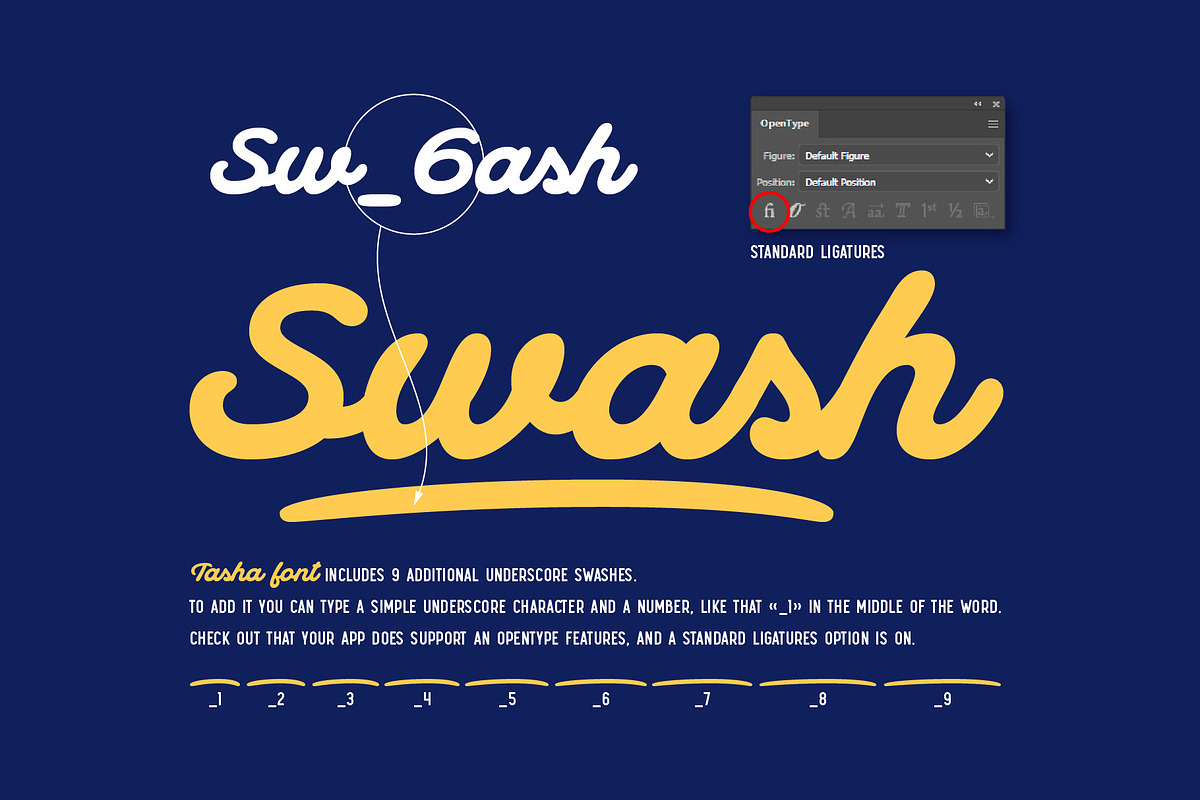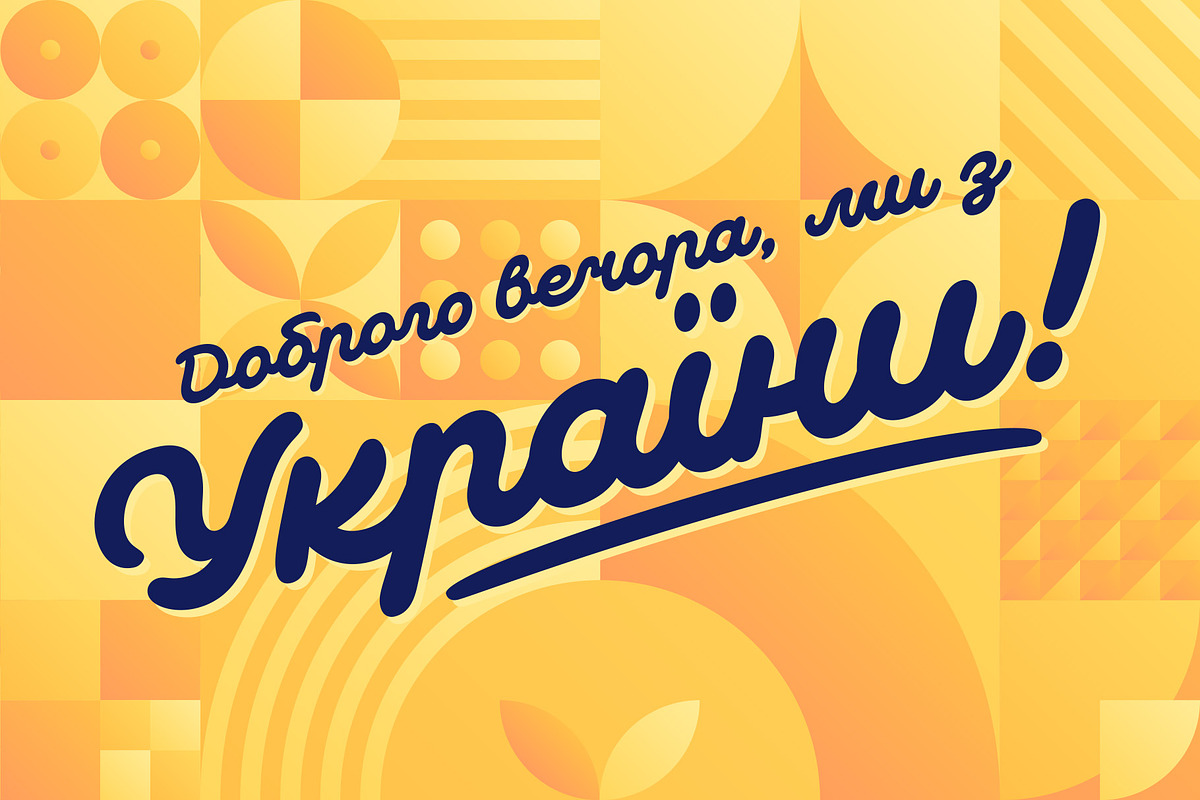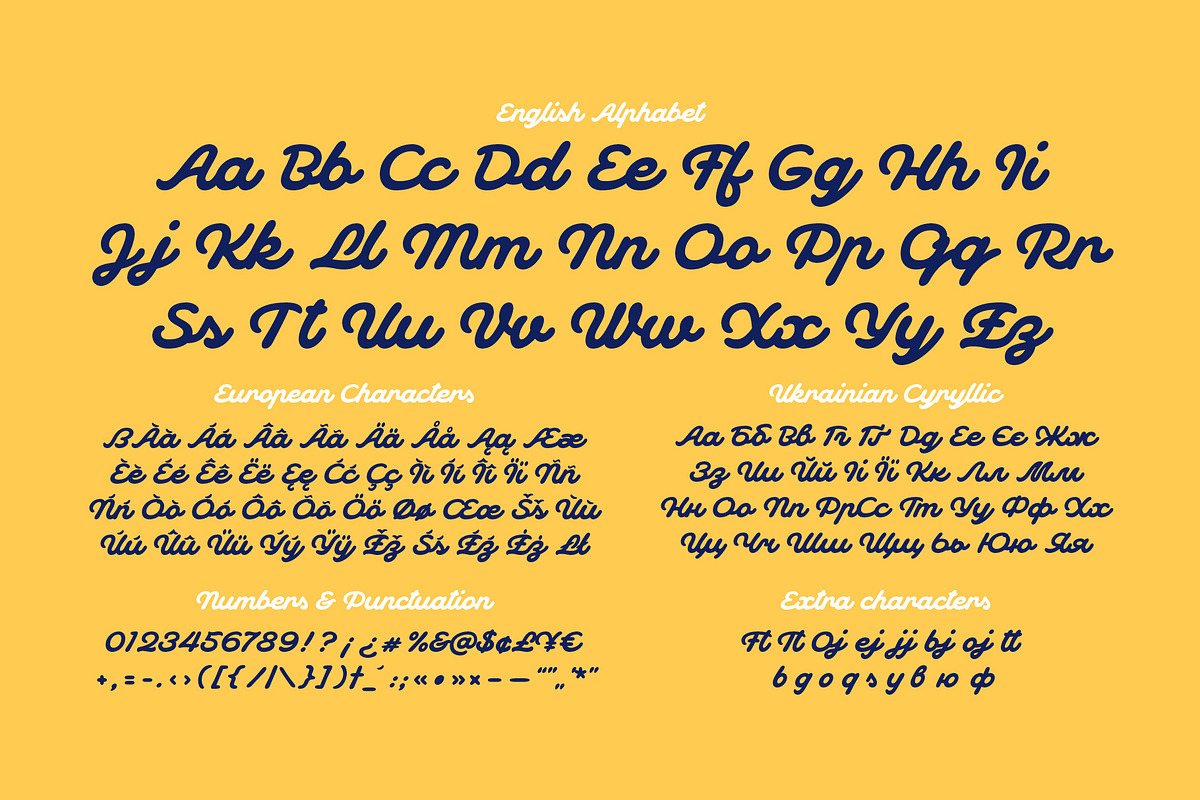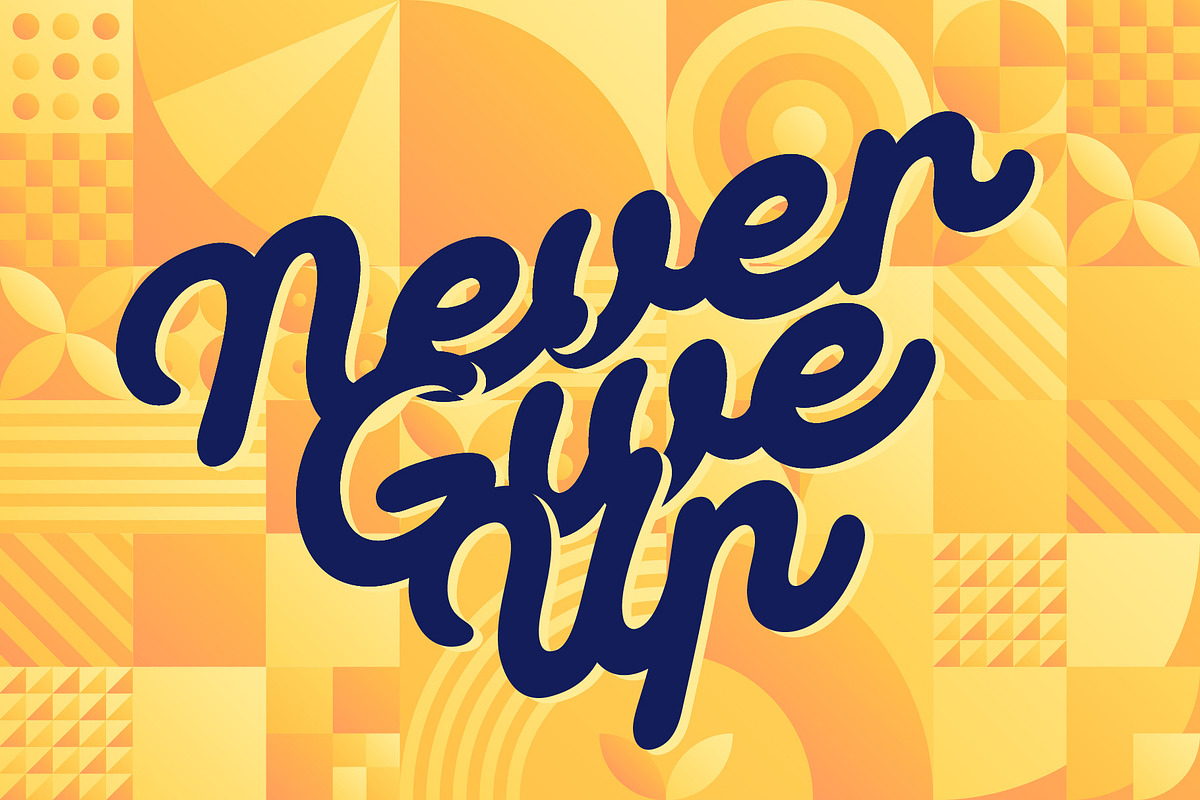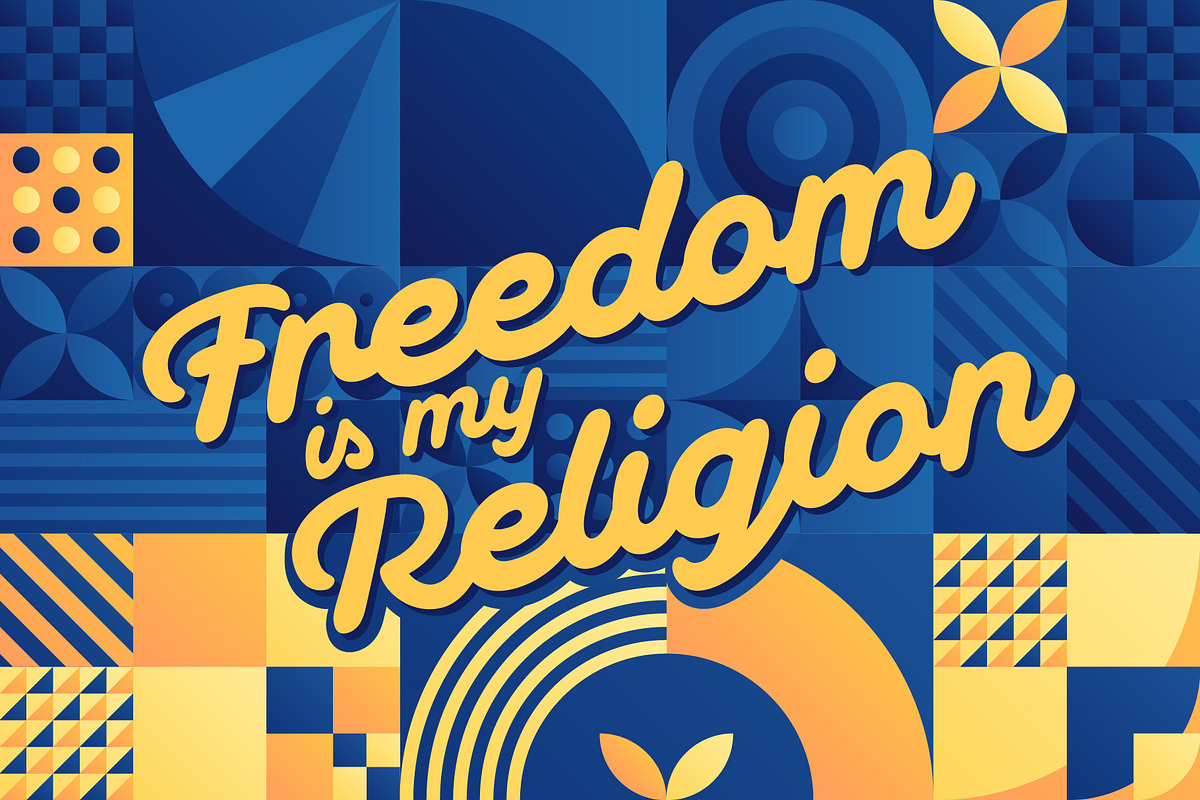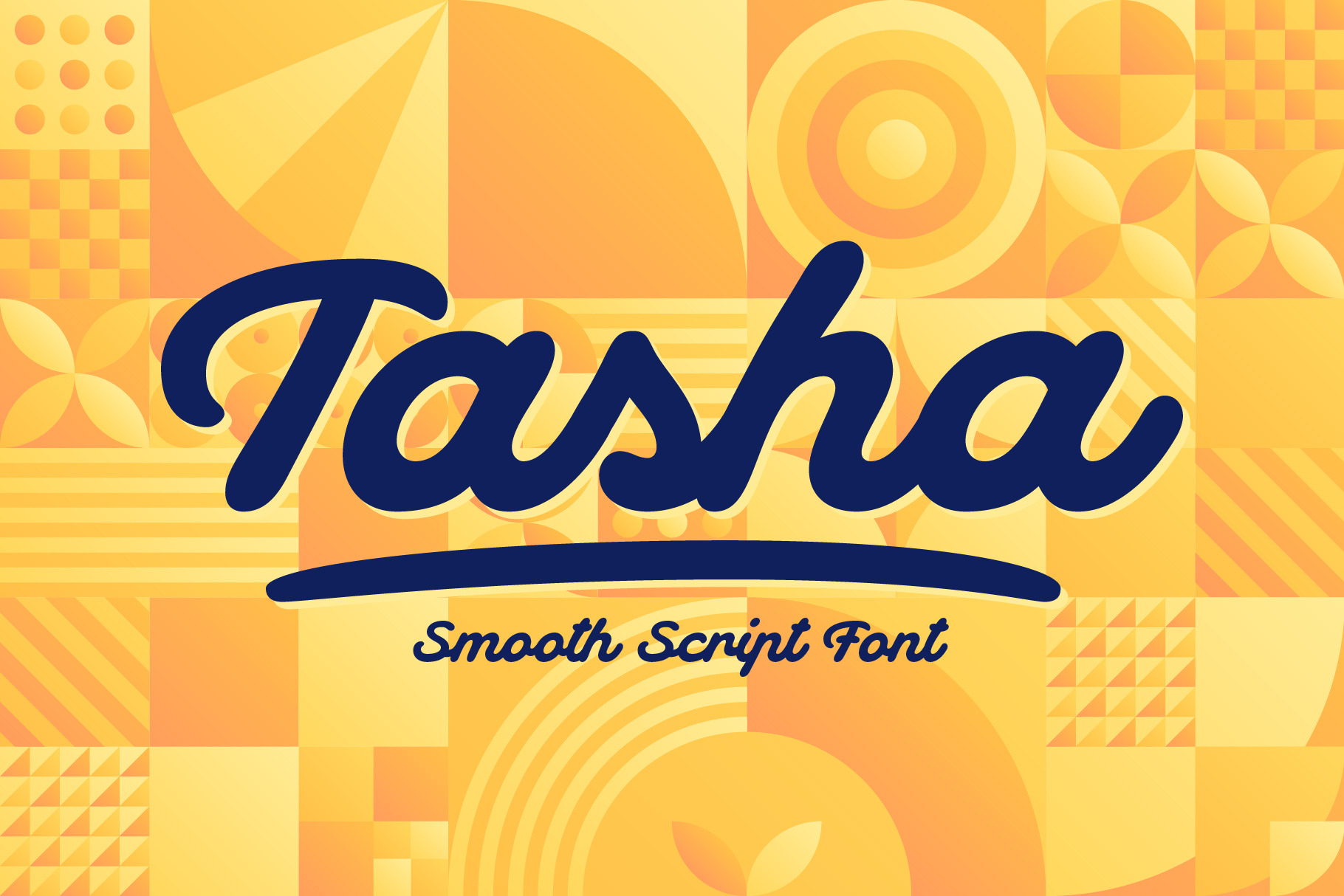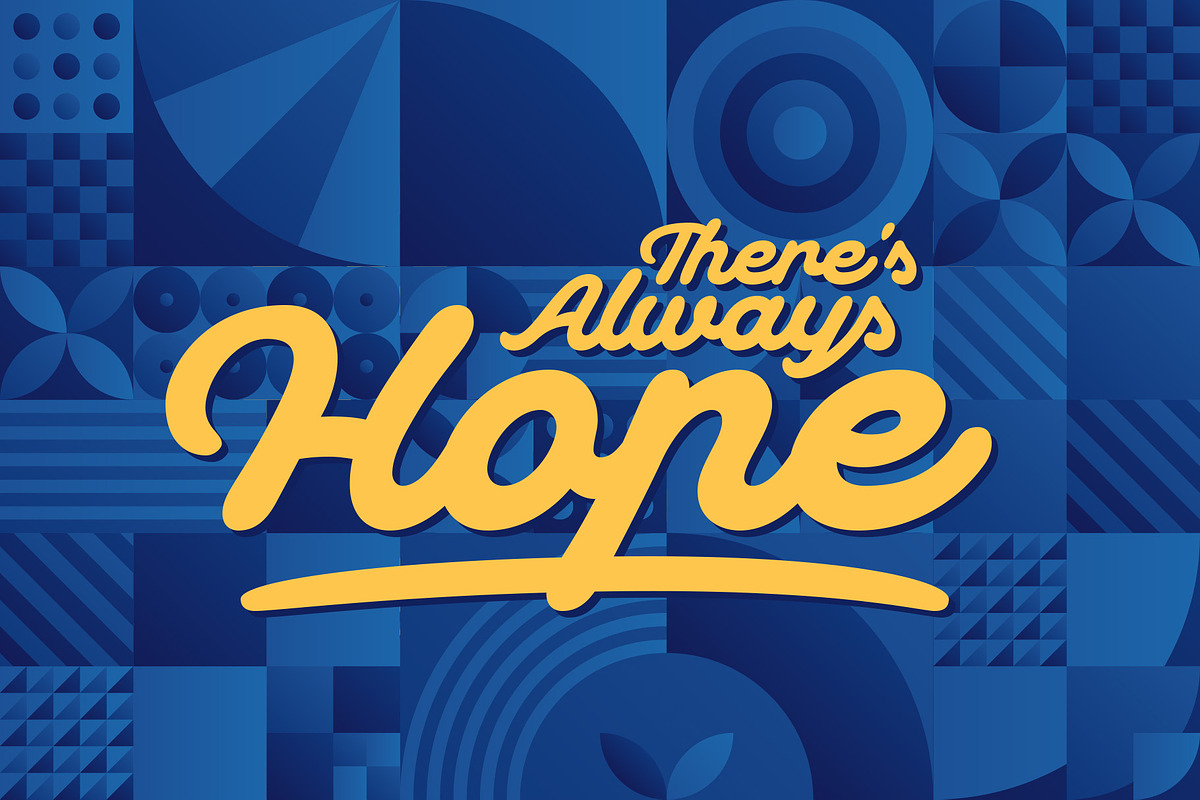
Tasha script font
Hi, introducing a script font named Tasha. It's a trendy typeface with smooth flowing shape. Tasha font supports english and most of european latin languages and also has ukrainian cyryllic alphabet (check out the screenshot with all available glyphs). There are also 9 special underscore glyphs, you can access them by typing "_1" with turned on standard ligatures feature (check out a presented screenshot). Also please make sure that your software supports OpenType features. As a bonus all the background geometric vector patterns are included.